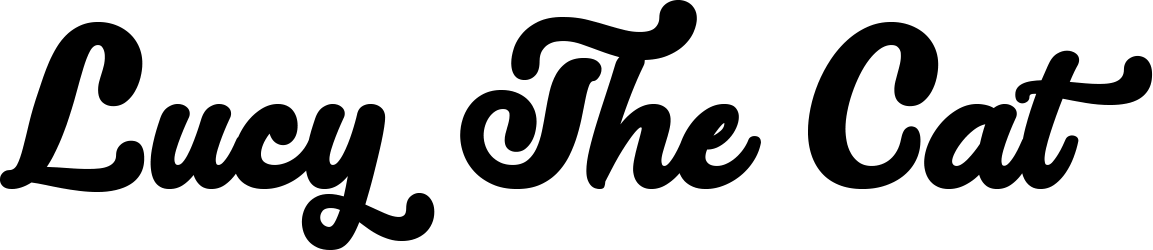
Lucy the Cat Font
Elegance and creative elements of cursive font make them a great choice for projects like invitations, overlaying your photographs, and romantic writings. We offer you Lucy the Cat. This awesome cat font comes with both the uppercase and lowercase of the alphabets, the numbers, and the punctuation marks.